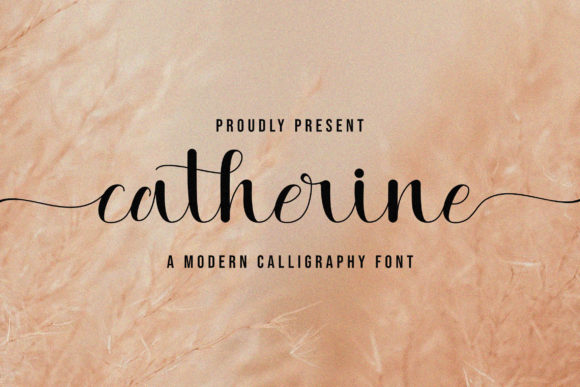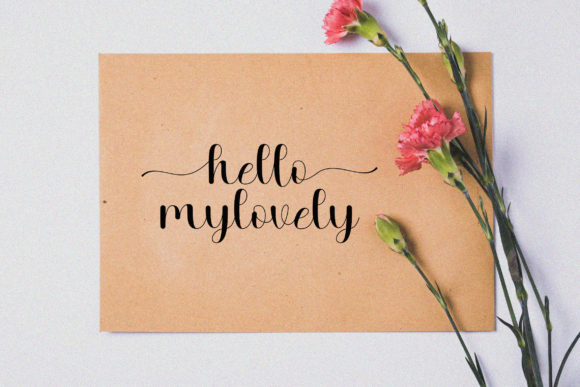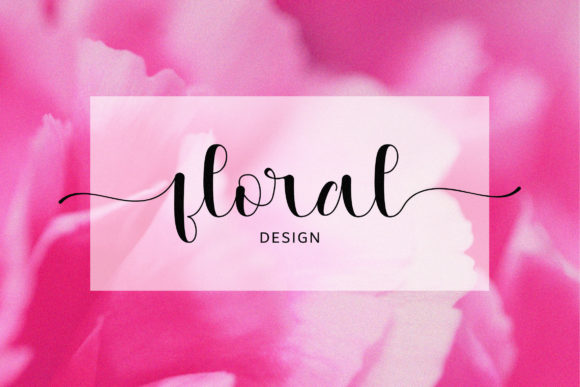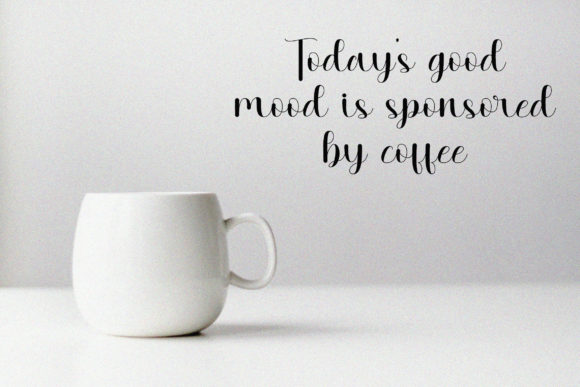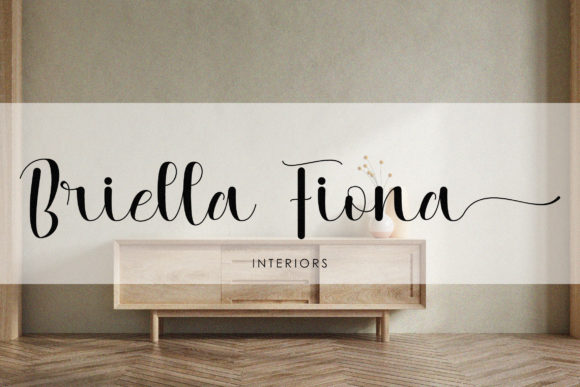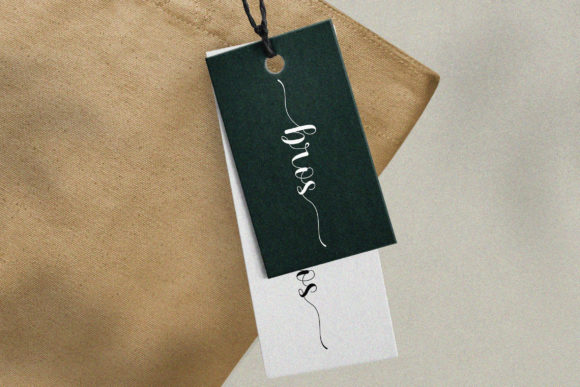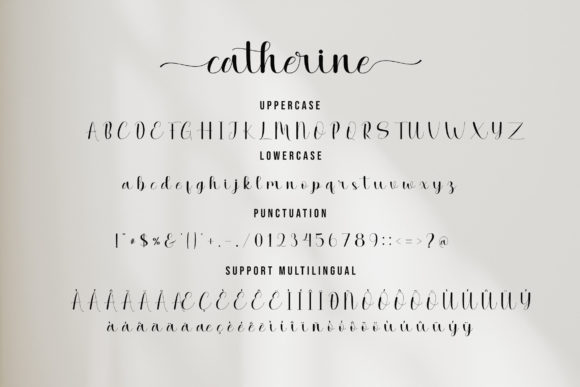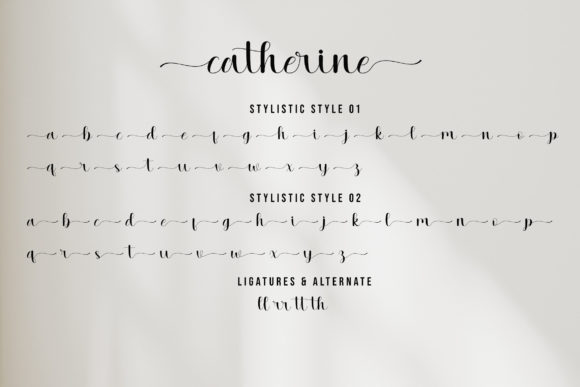
Catherine Font
About Catherine Font
Catherine Script is a beautiful and delicate script font. It is PUA encoded which means you can access all of the glyphs and swashes with ease! Add it confidently to your projects, and you will love the results.